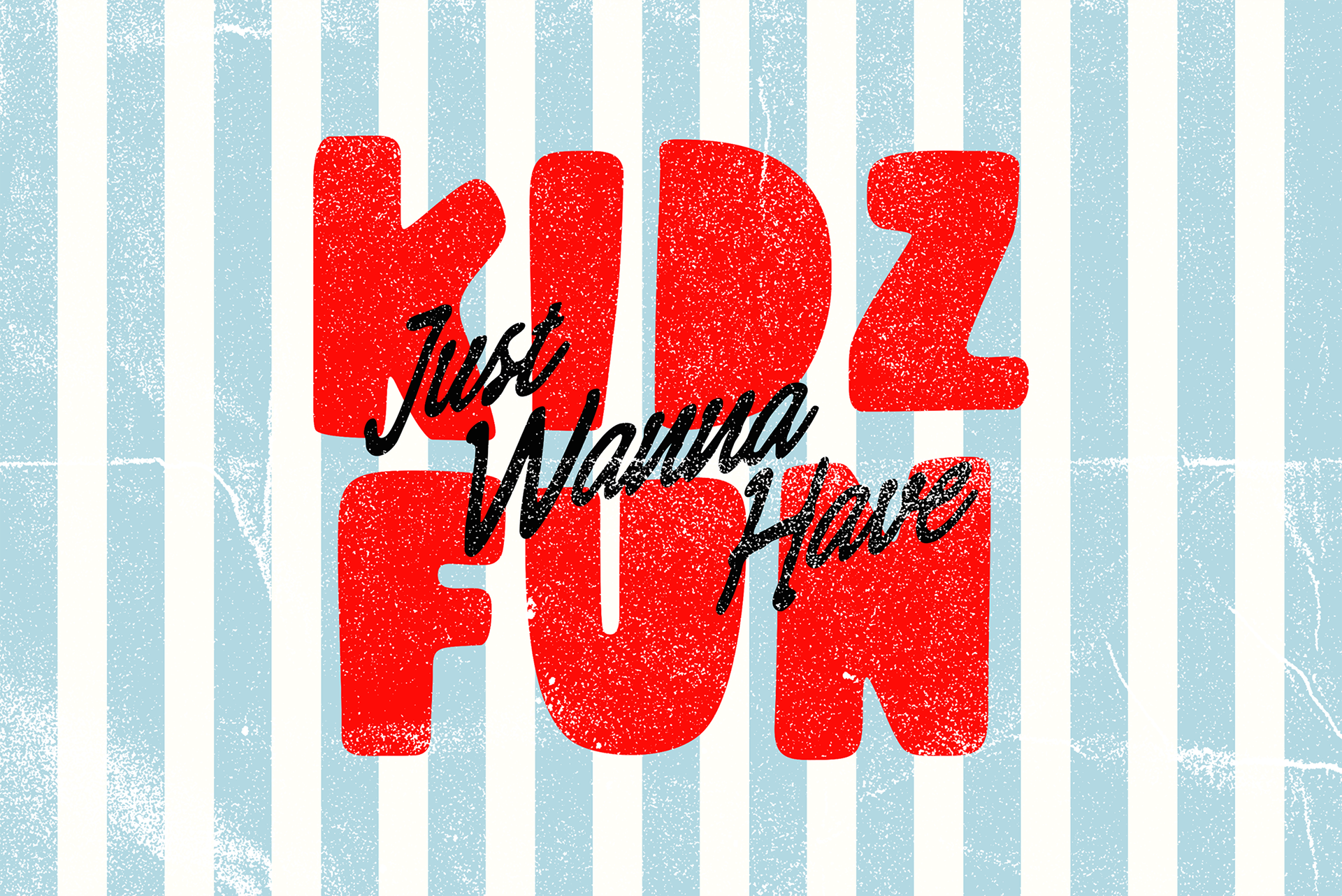
ATP-Diggiez
Diggiez ia a geometric Bold display typeface characterized by its exaggerated weight, rounded terminals, and slightly irregular counters that create a sense of playful distortion. Inspired by 1970s psychedelic poster lettering and mid-century pop culture graphics, this font emphasizes visual mass and figure-ground dynamics, making it immediately eye-catching in both digital and print applications.
Its volumetric proportions and organic curvature convey a sense of vibrancy and informality, while the hand-rendered quality maintains a humanist touch that distinguishes it from strictly digital geometric fonts. Diggiez Bold is especially effective for headline typography, logotypes, album art, editorial covers, packaging design, and retro-inspired branding systems.